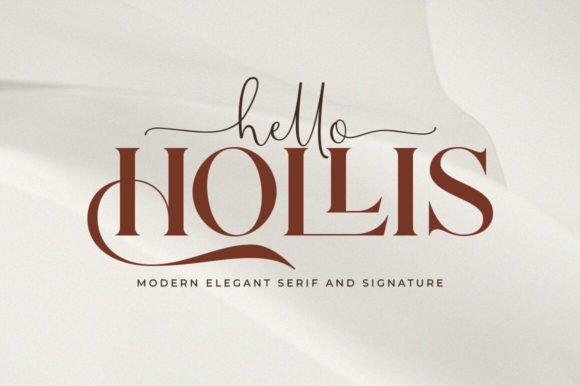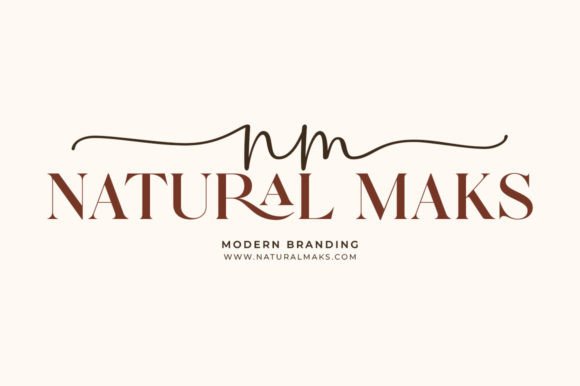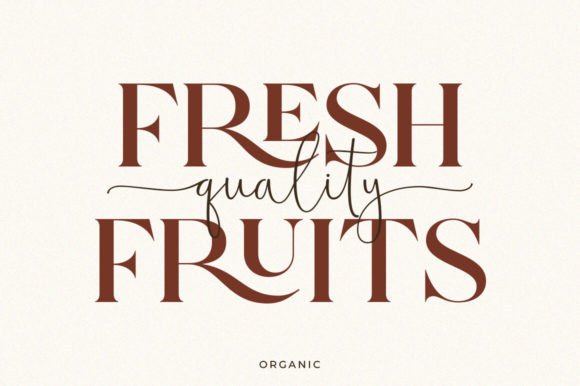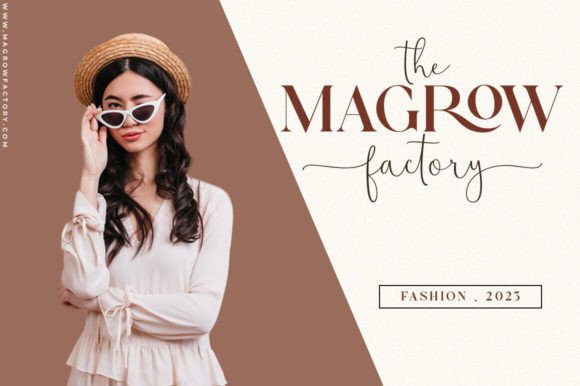
Hello Hollis Font
About the Hello Hollis Font
Let us introduce you to Hello Hollis Font, where timeless design meets modern craftsmanship. Hello Hollis is a spectacular duo font (serif and script). Incredibly versatile, this font fits a wide pool of designs, elevating them to the highest levels. Add this font to your favorite creative ideas and notice how it makes them come alive.
Hello Hollis’s elegant serif and expressive script pair best in projects requiring a touch of vintage charm with a modern twist. It excels in branding applications for boutiques, cafes, or stationery, creating sophisticated logos and packaging. Headings and short text blocks on invitations or posters also benefit from its refined aesthetic. However, its ornate script is less suitable for body text or UI elements where readability is paramount.
For optimal balance, pair the Hello Hollis serif with a clean sans-serif like Montserrat for body copy or a geometric sans-serif like Futura for a more modern feel. The script pairs well with a simple, neutral serif like Garamond for a classic, cohesive look or a playful, slightly condensed sans-serif to provide contrast.
The overall personality of Hello Hollis is sophisticated yet approachable; it conveys a sense of classic elegance with a touch of warmth and playfulness, making it ideal for brands aiming for a refined but not overly formal image.
Hello Hollis Font Usage Examples
Hello Hollis Font Example